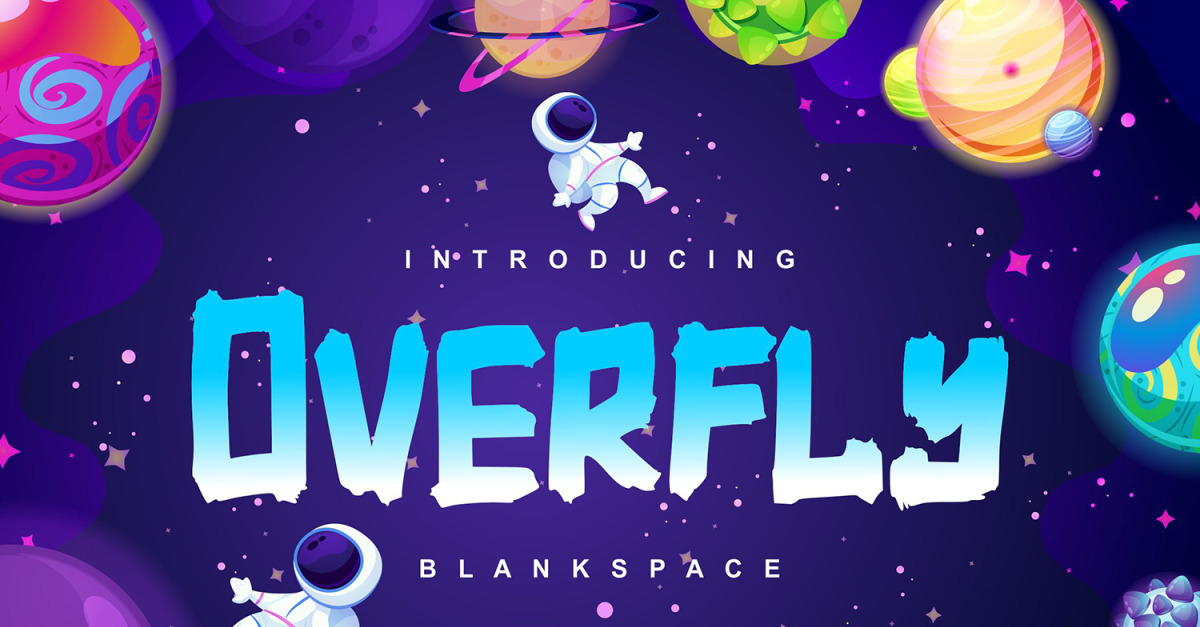
Overfly | Blank Space Cursive Font
**Overfly | Blank Space Script Font** with a calligraphy style, So beautiful on invitation like greeting cards, branding materials, business cards, quotes, posters, and more!